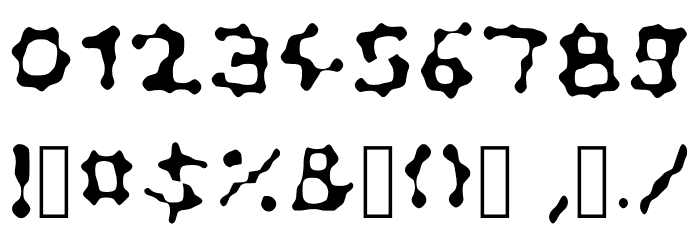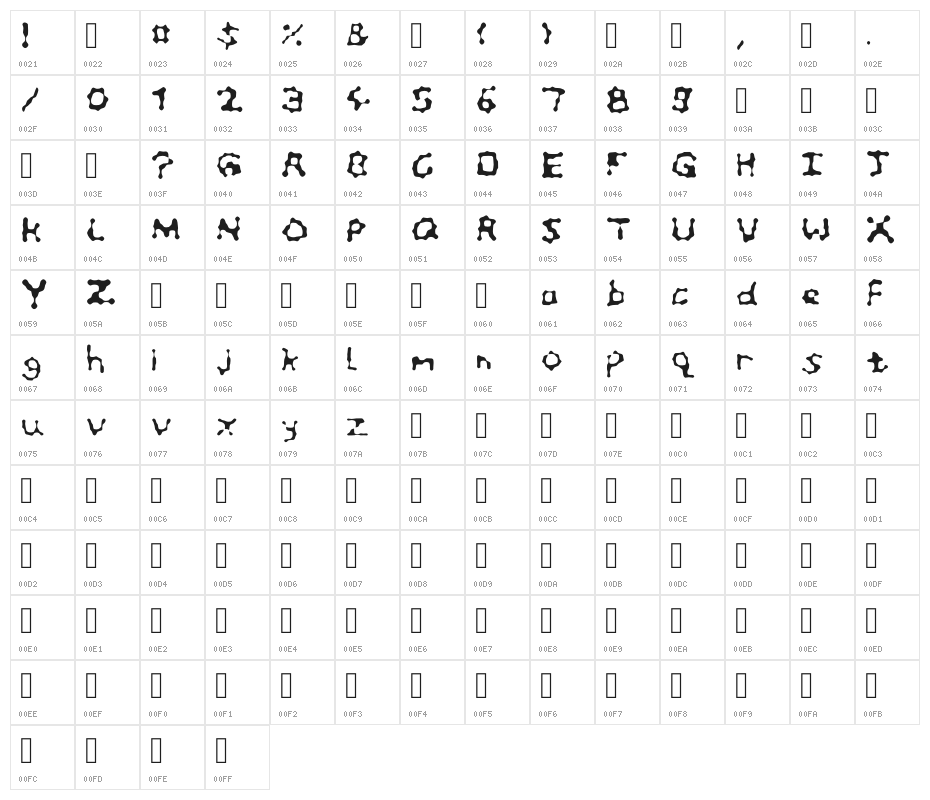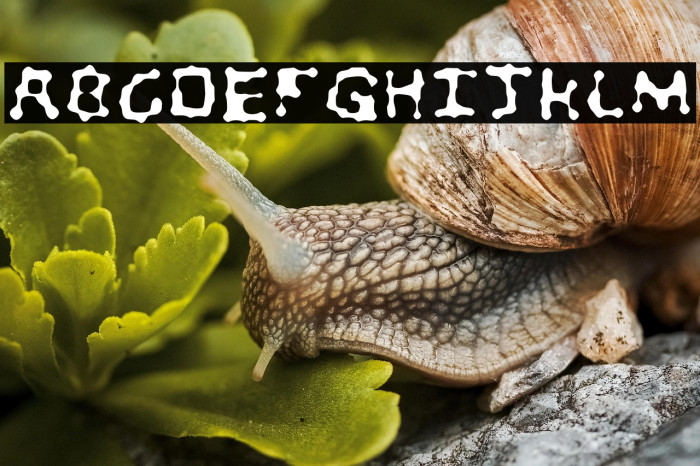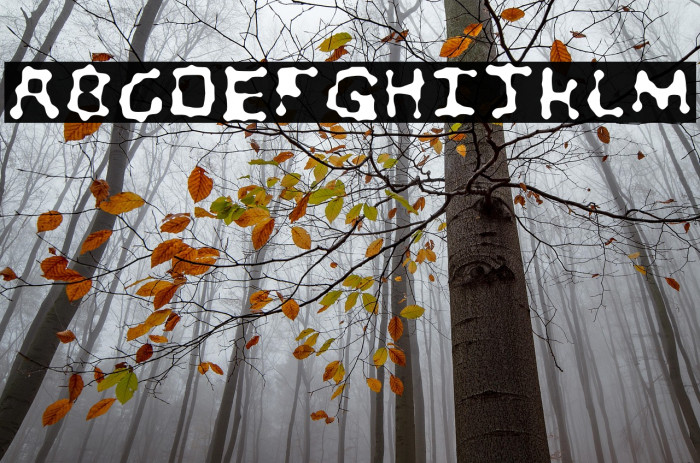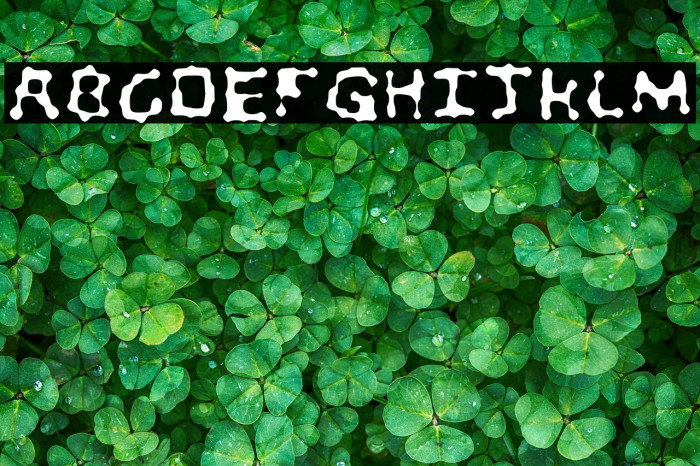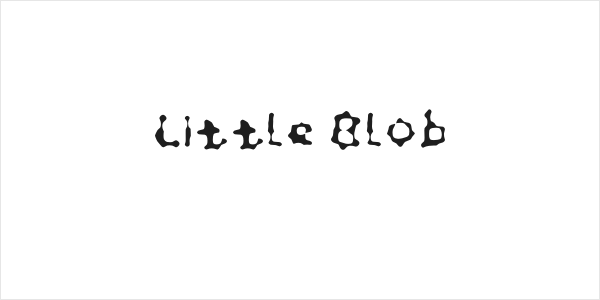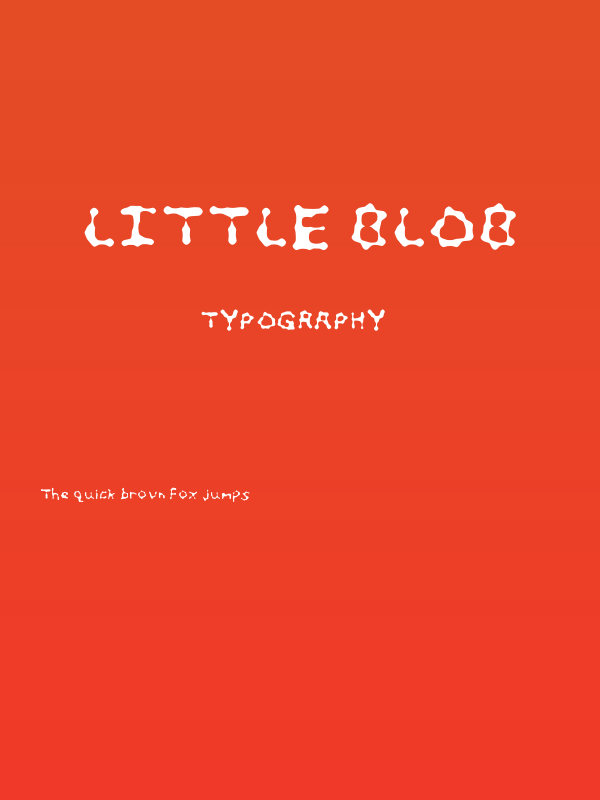
Little Blob Font
Little Blob Description
This font features a playful and organic design, characterized by its irregular, blob-like shapes that give it a unique, hand-drawn appearance. The letters are bold and have a slightly uneven texture, reminiscent of ink blots or melted wax. The uppercase and lowercase letters maintain a consistent style, with rounded edges and varying thicknesses that add to the font's whimsical charm. Numbers and special characters follow the same design principles, ensuring a cohesive look across all elements. This font's distinct style makes it stand out, offering a creative and artistic touch to any project.
| Proposed Projects | Ideal for children's books, creative posters, artistic branding, and playful invitations. |